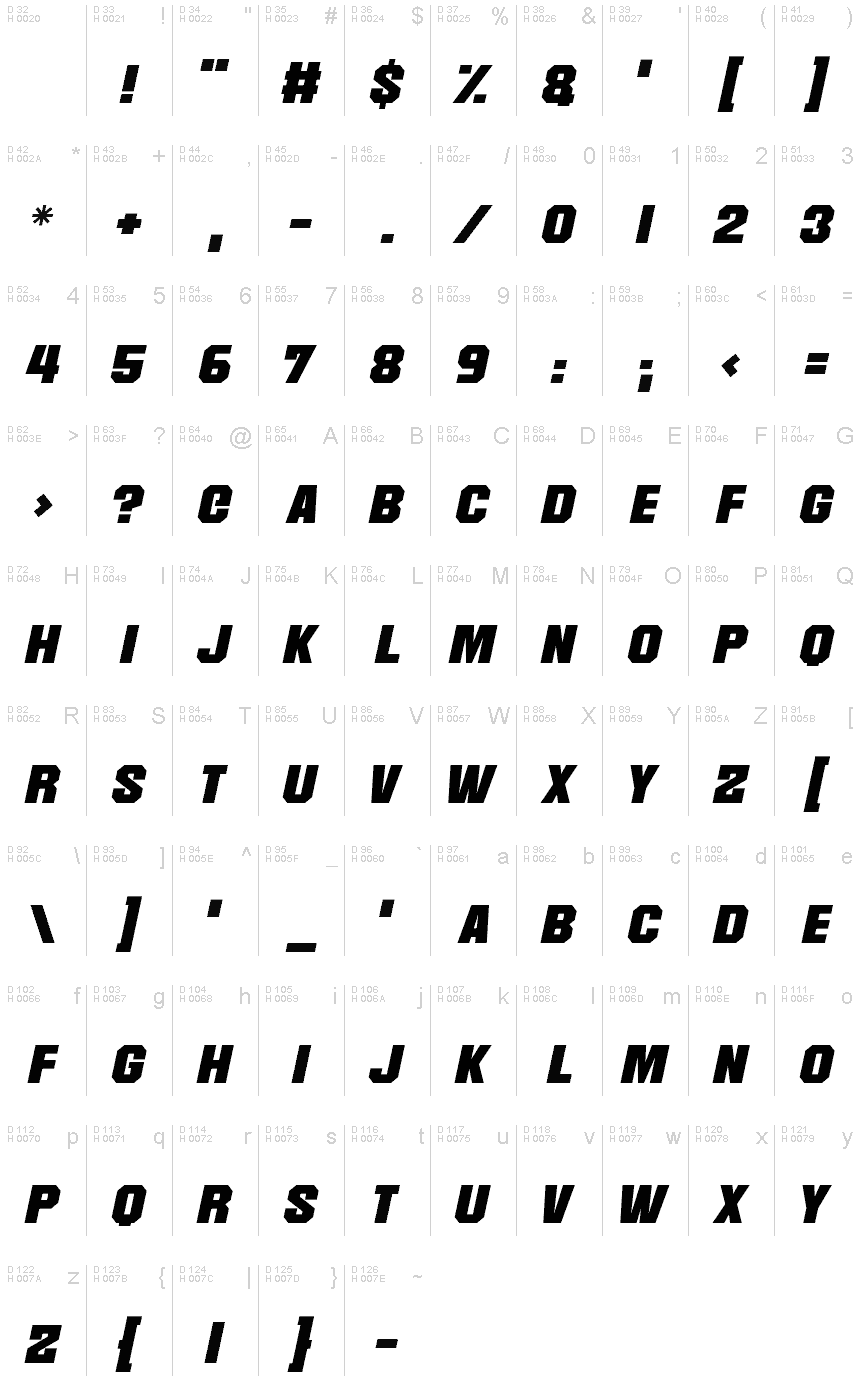
Martian Robotics Italic
Martian Robotics Italic is a bold, futuristic display font that conjures visions of advanced technology and extraterrestrial exploration.
Designed by Daniel Flood, this captivating typeface exudes a sleek, mechanical aesthetic, with sharp angles and geometric forms that evoke the precision of robotic engineering. The italic styling adds a dynamic, forward-leaning energy, suggesting motion and progress. Martian Robotics Italic shines in headline, logo, and branding applications, where its powerful presence can command attention and convey a sense of innovation and modernity.
Its versatility makes it a compelling choice for sci-fi-inspired designs, product packaging, and digital interfaces that require a distinctive, technologically-advanced aesthetic.